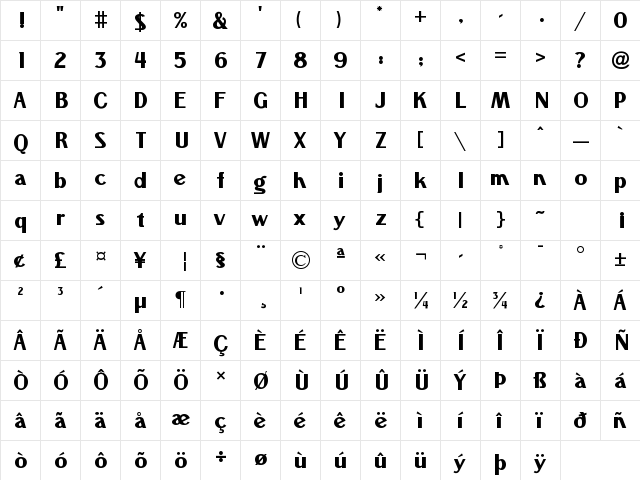
Fisher-Price Gothic Regular
Design Context for Fisher-Price Gothic Typeface
Fisher-Price Gothic has the quiet confidence of well-executed sans-serif typography: versatile, unobtrusive, and dependable at any size.
Font Pairing: Works well alongside a characterful serif or display font that can carry the expressive load while Fisher-Price Gothic handles the functional copy.
Pro Tip: Pair Fisher-Price Gothic with a display or serif font for headlines — its neutral character makes it an excellent supporting player in complex typographic systems.